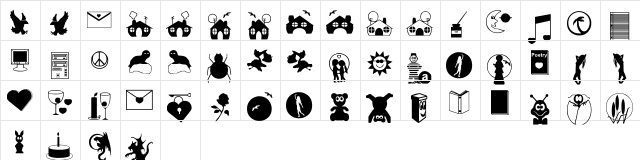
sbding2 Regular Font Preview
sbding2 Regular
Design Context for sbding2 Typeface
sbding2 is a composed and adaptable typeface that performs quietly and consistently across a wide range of design contexts.